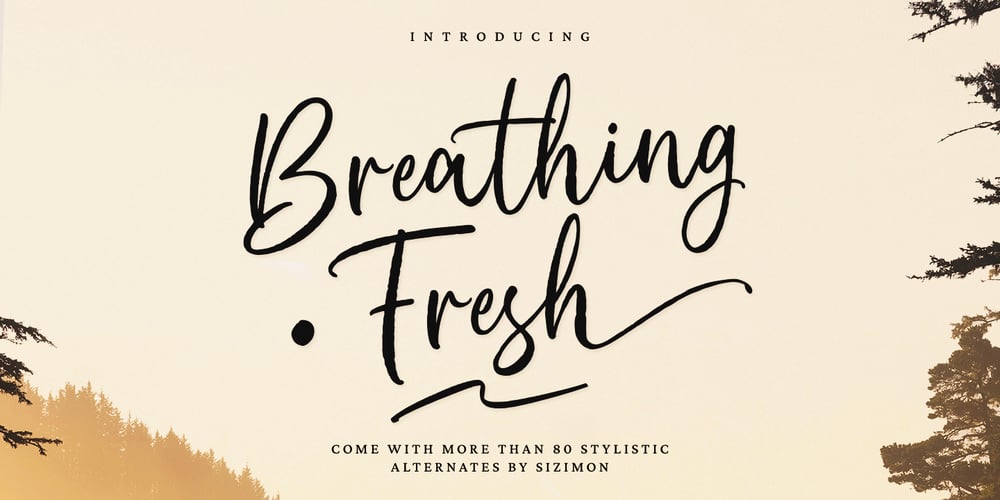
Breathing Fresh
Breathing Fresh Font Family was designed by Faisal Tanjung and published by sizimon. Breathing Fresh contains 1 styles and family package options. Breathing Fresh is a handwritten script font. This font is perfect for quotes, branding, ornaments, shirts, mugs, headings, blogs, logos, invitations and more!What’s Include : PUA encode & Opentype ( It is full of Tails and glyphs ) Multilingual support Use the fonts for: logos, branding materials, wedding sign, wedding website card, farmhouse signs, sign bridal, shirts, pantry labels, sign bridal shower, business cards, greeting cards, wall decor, social media, planner prints and websites.• This font works with any application Microsoft Word, Adobe Photoshop, Microsoft Paint, Corel, Adobe Illustrator, Cricut Design Space, and many others!If you have any question please do not hesitate to contact me. Thank You!